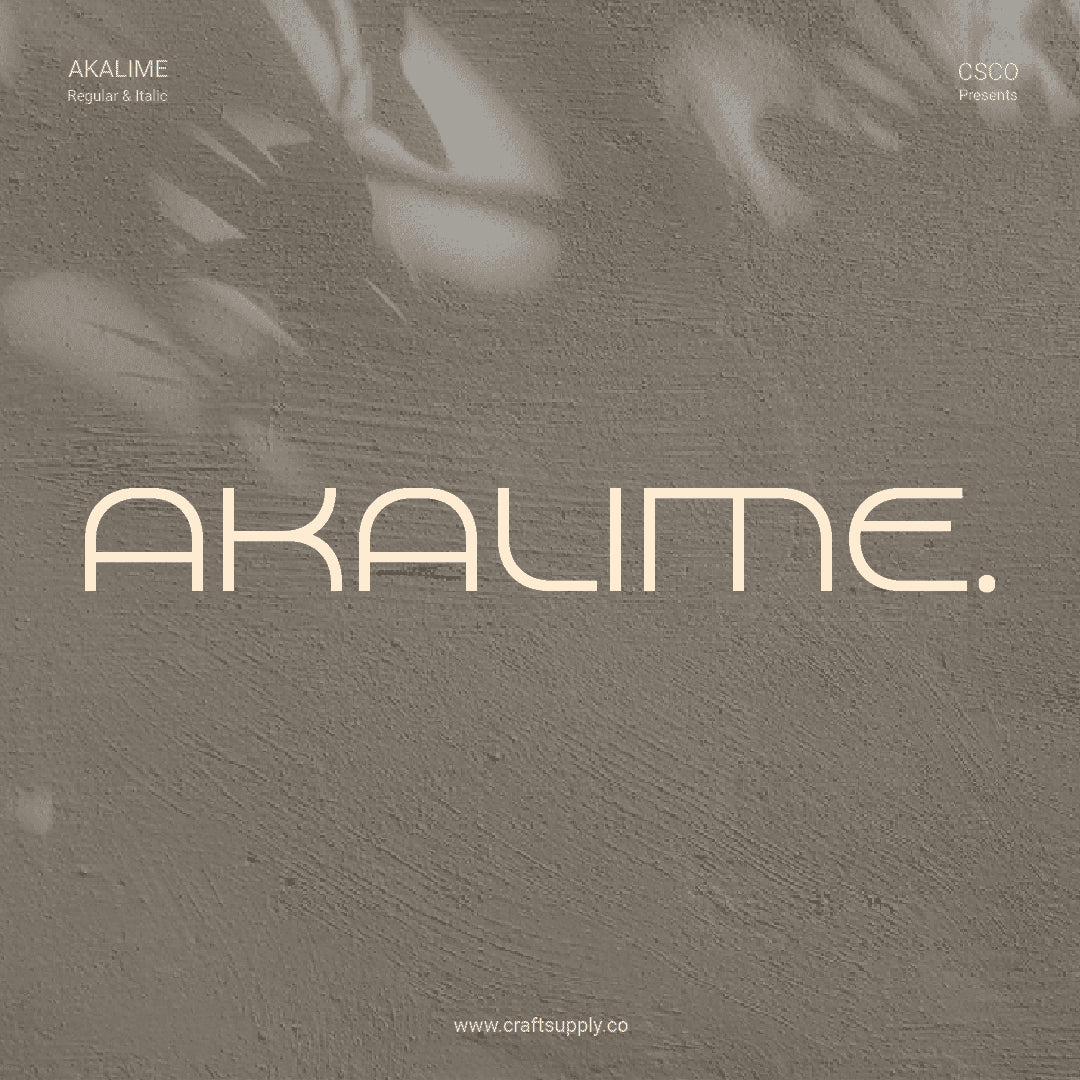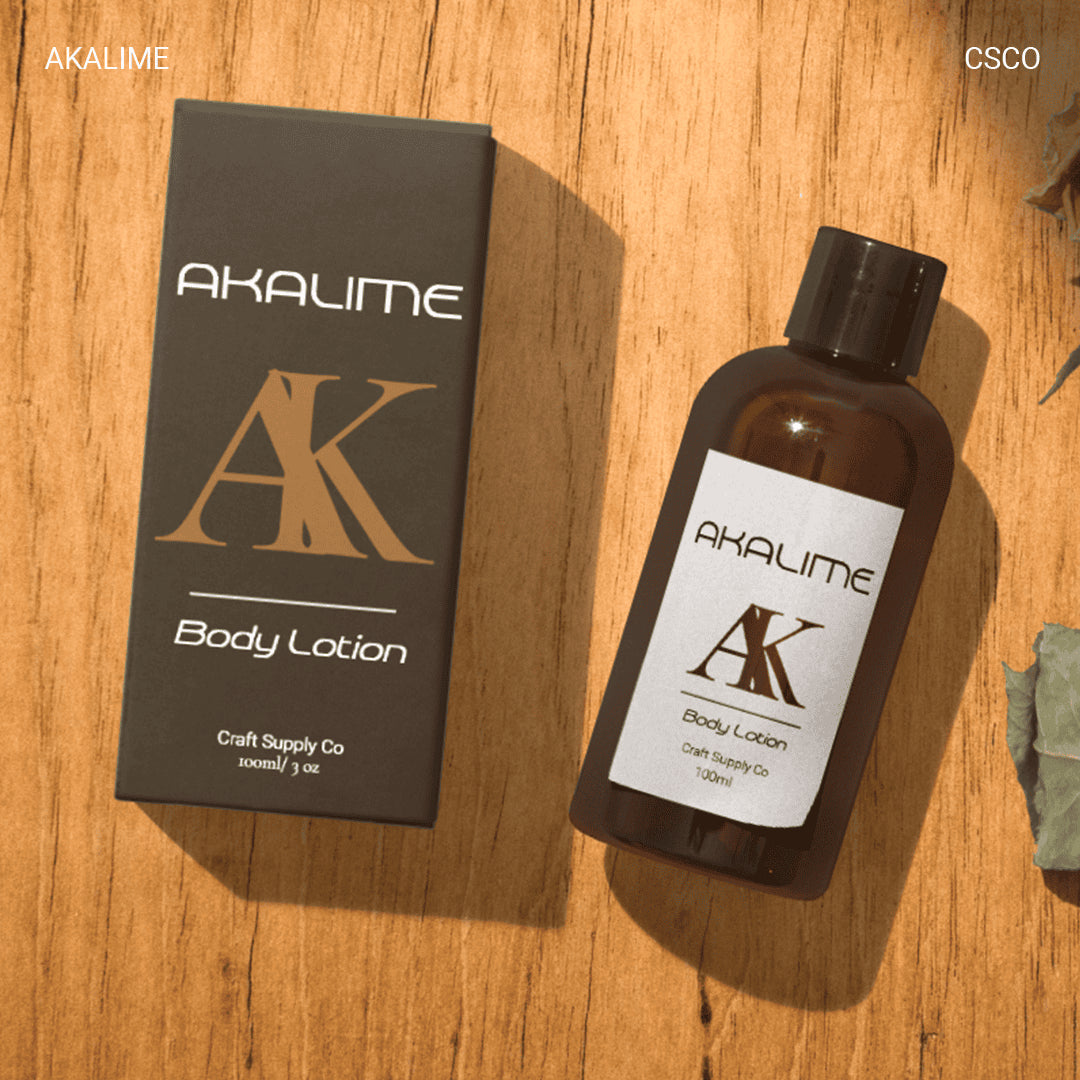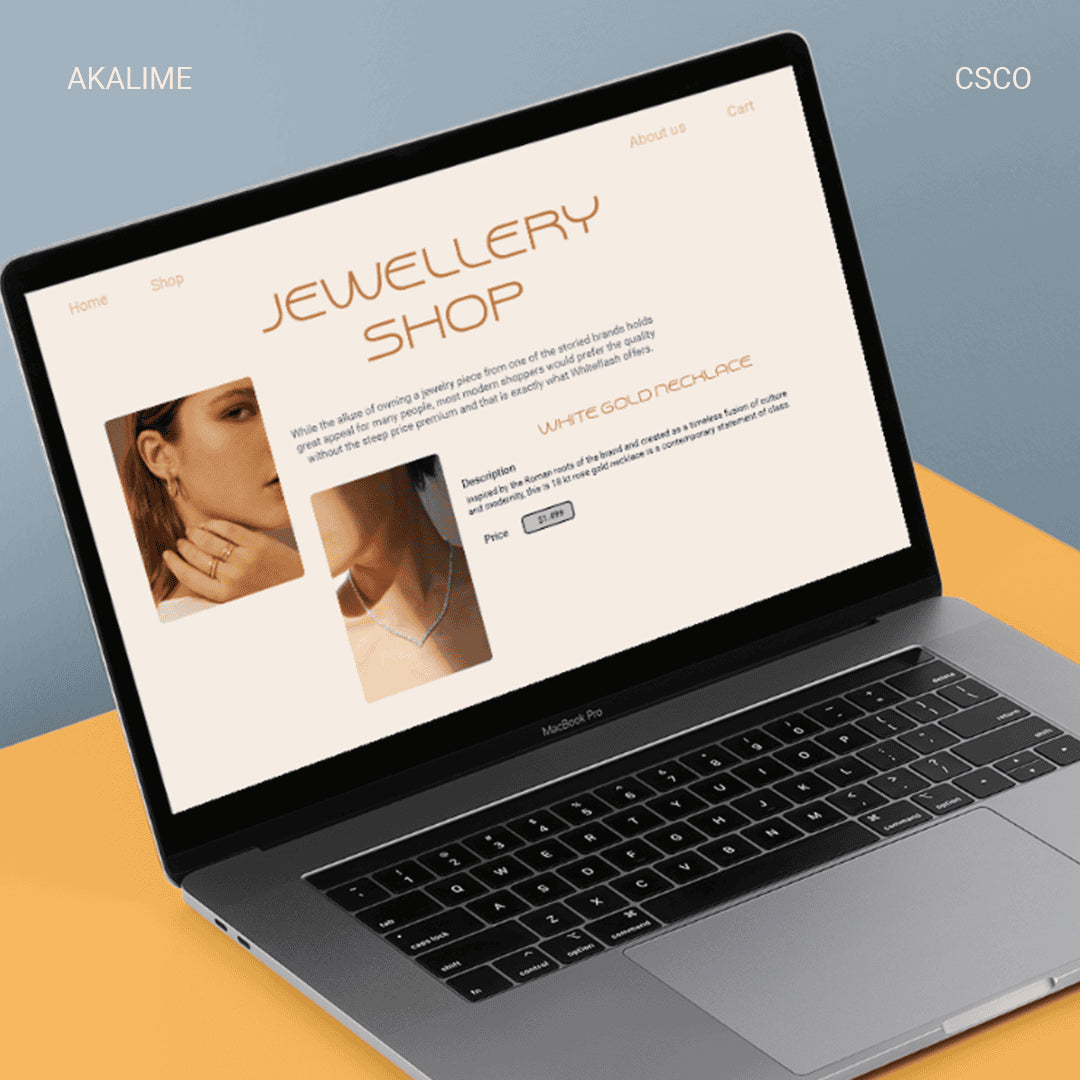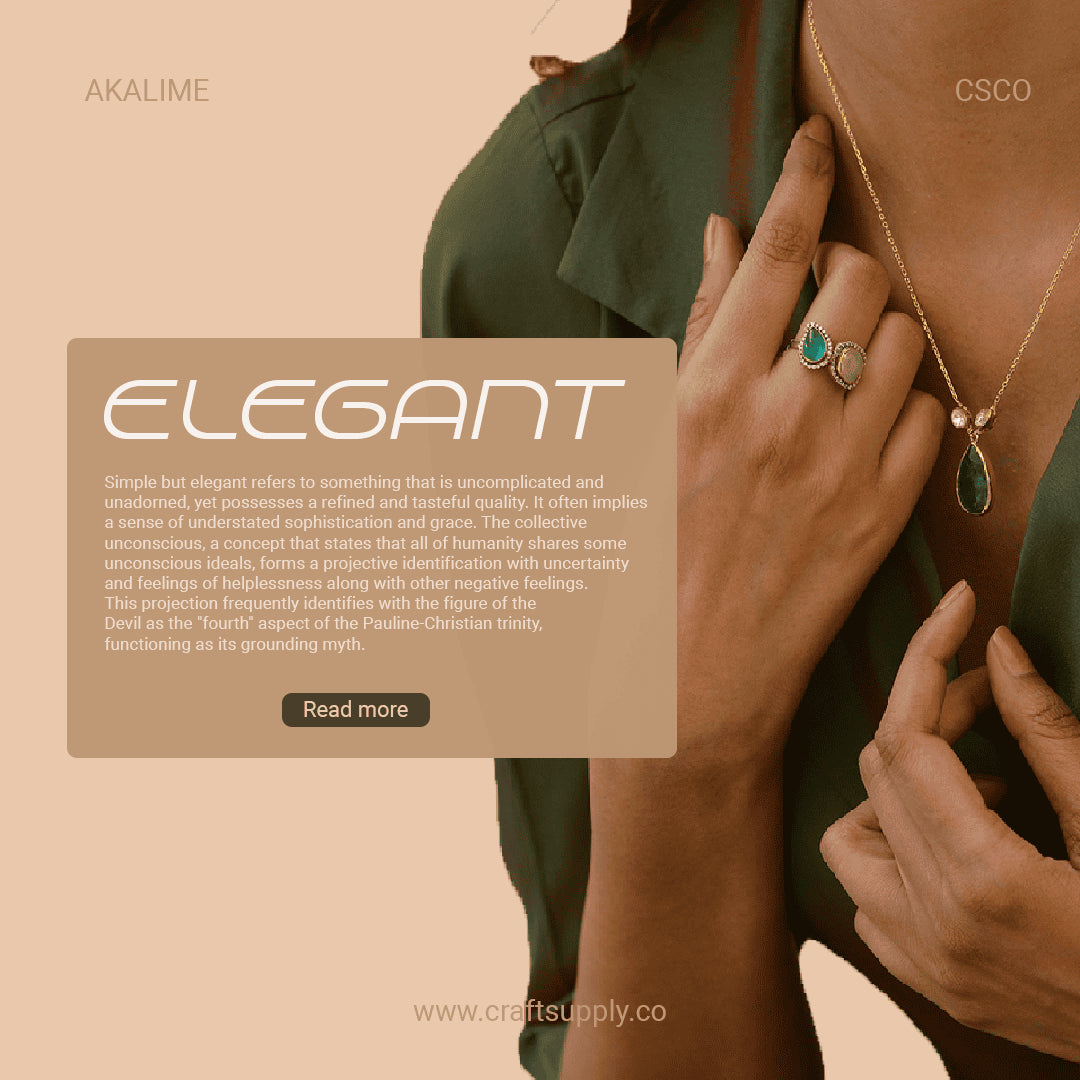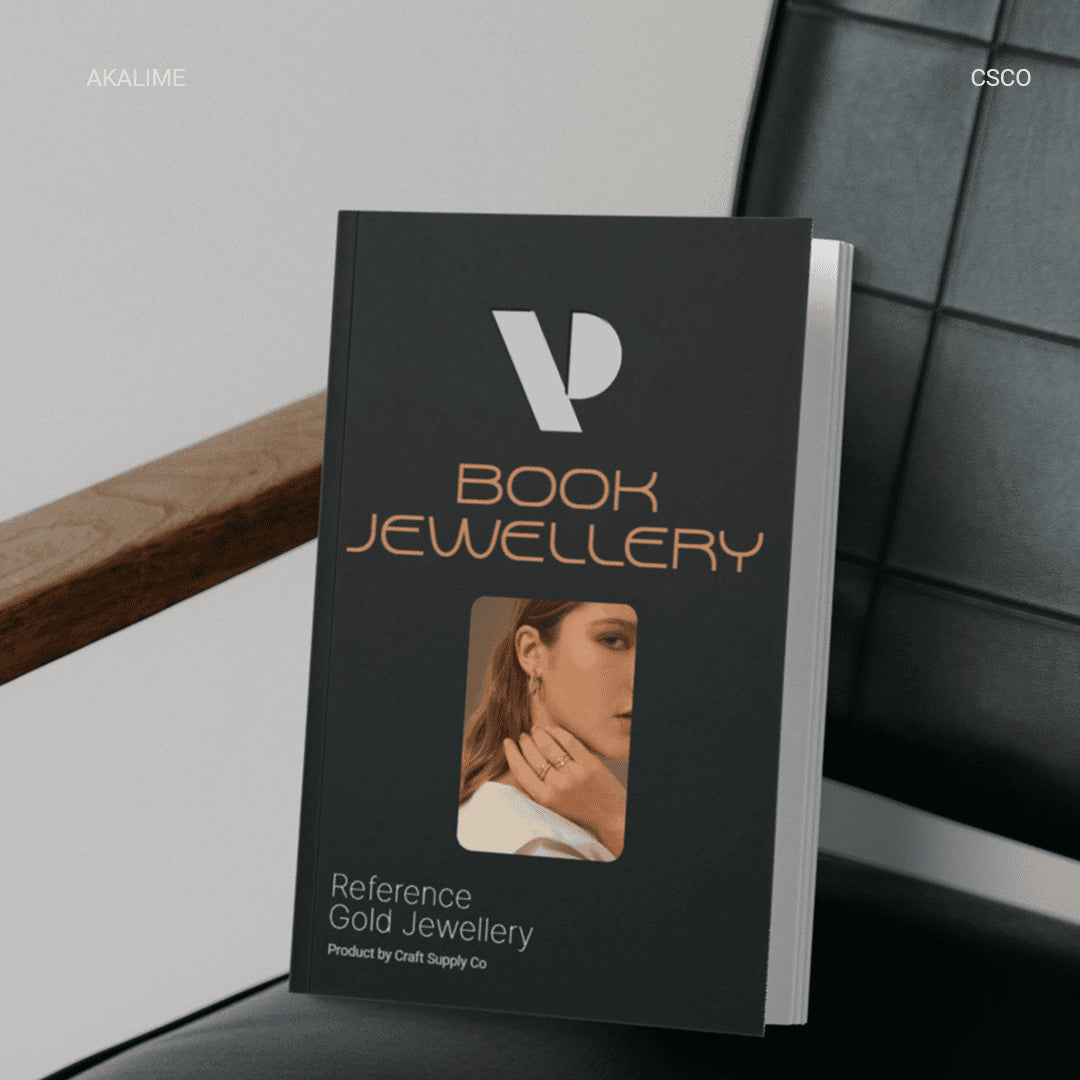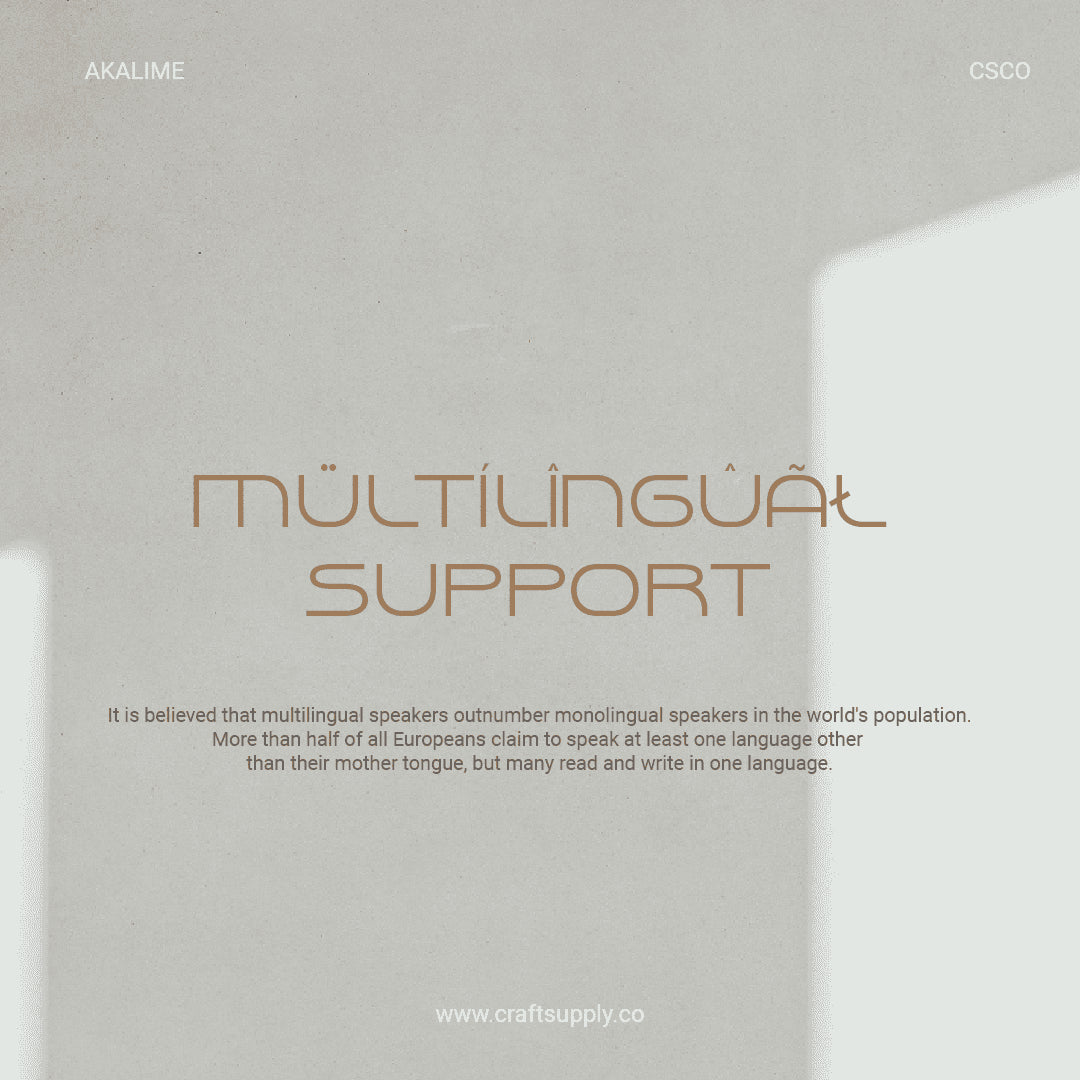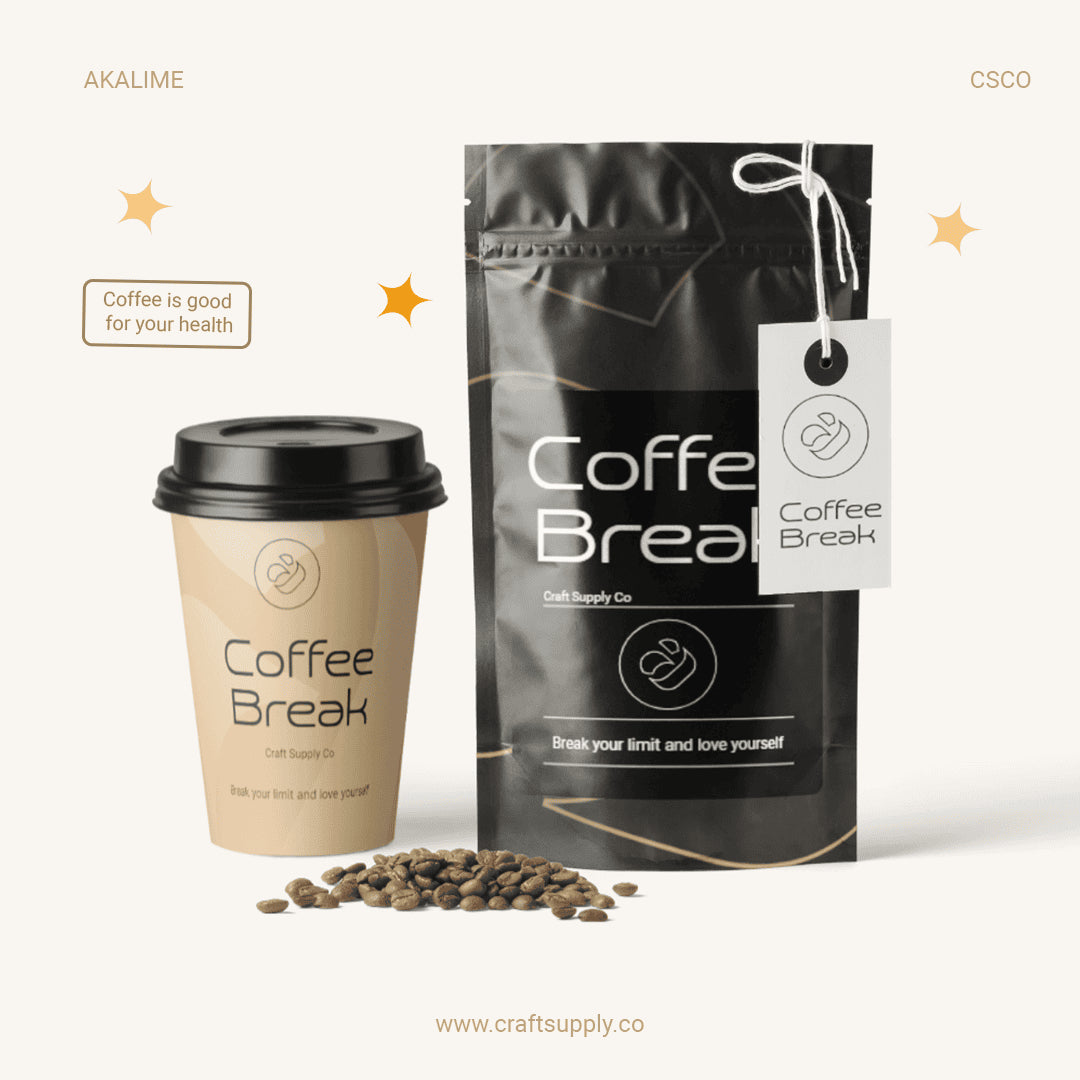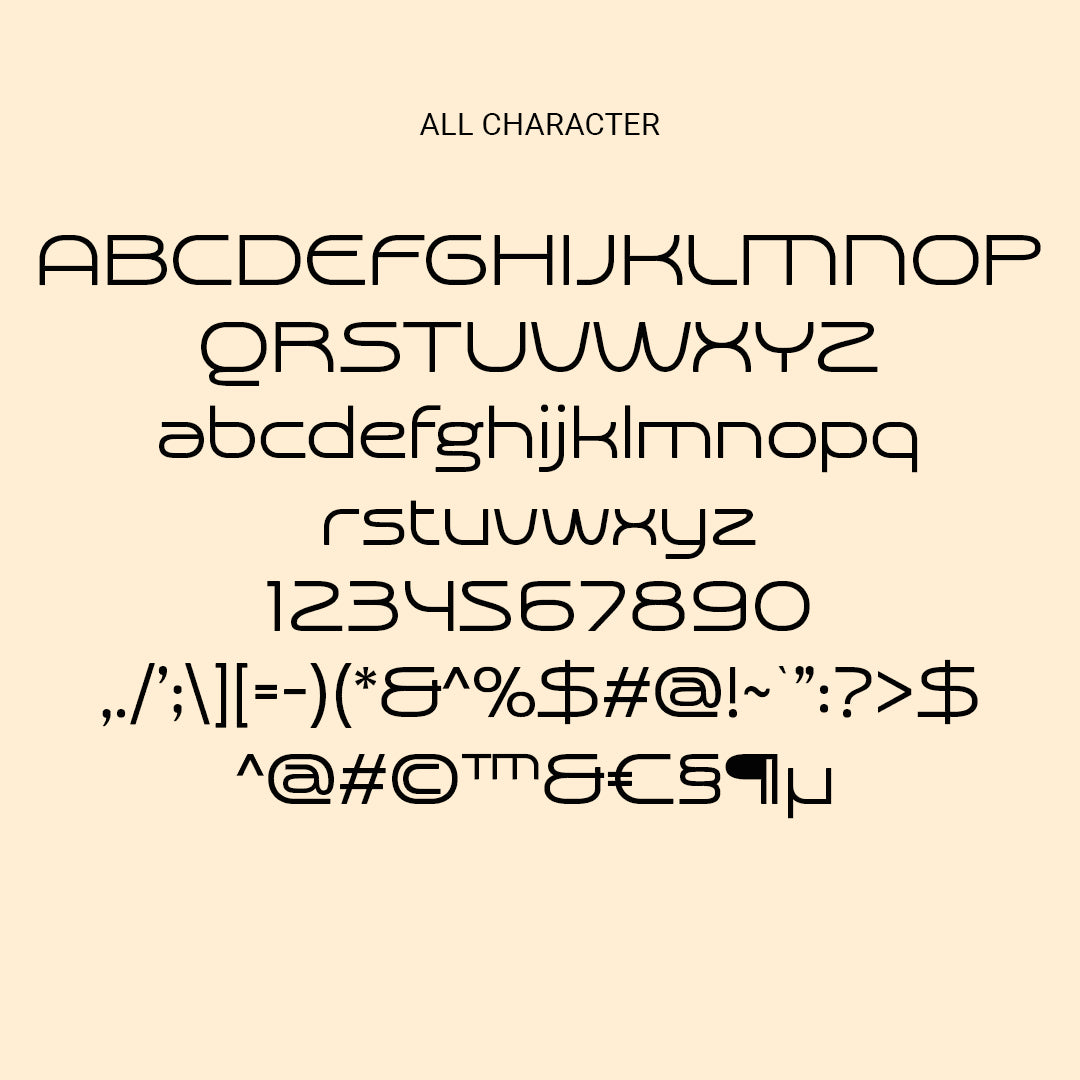
Akalime – Monoline Font
Akalime Font: Seamlessly Merging Modernity and Futurism
Sleek Monoline Aesthetics
Akalime introduces a sleek monoline sans serif design, establishing a seamless and contemporary visual appeal that aligns with modern design sensibilities.
Futuristic Nuances Unveiled
This font goes beyond the ordinary, unveiling futuristic nuances that elevate it to a cutting-edge choice for those seeking a glimpse into design’s future.
Versatility Across Mediums
Akalime’s modernity and futurism make it an ideal choice across various mediums—whether digital interfaces, print materials, or branding, it adds a touch of innovation.
Unleashing Creative Potential
More than just letters, Akalime becomes a creative tool, empowering designers to infuse modern and futuristic vibes effortlessly into their projects.
Conclusion: A Glimpse into Tomorrow
Akalime isn’t just a font; it’s a portal to tomorrow’s design. With its monoline elegance and futuristic undertones, it becomes the bridge connecting the present to the future, offering endless possibilities for design exploration.
Akalime Regular
Akalime Italic
Akalime is a sleek monoline sans serif font that combines modern design with futuristic nuances. It includes both regular and italic styles, supports uppercase and lowercase characters, numerals, punctuation, and multilingual accents, making it a versatile choice for various design projects.